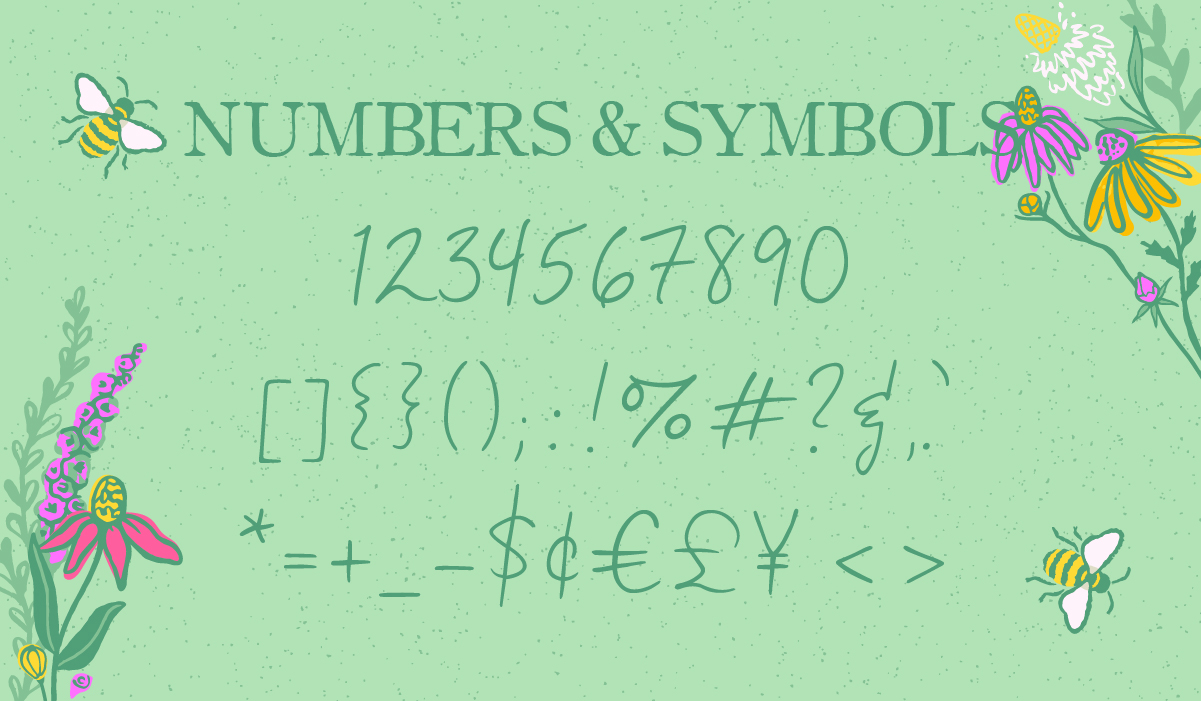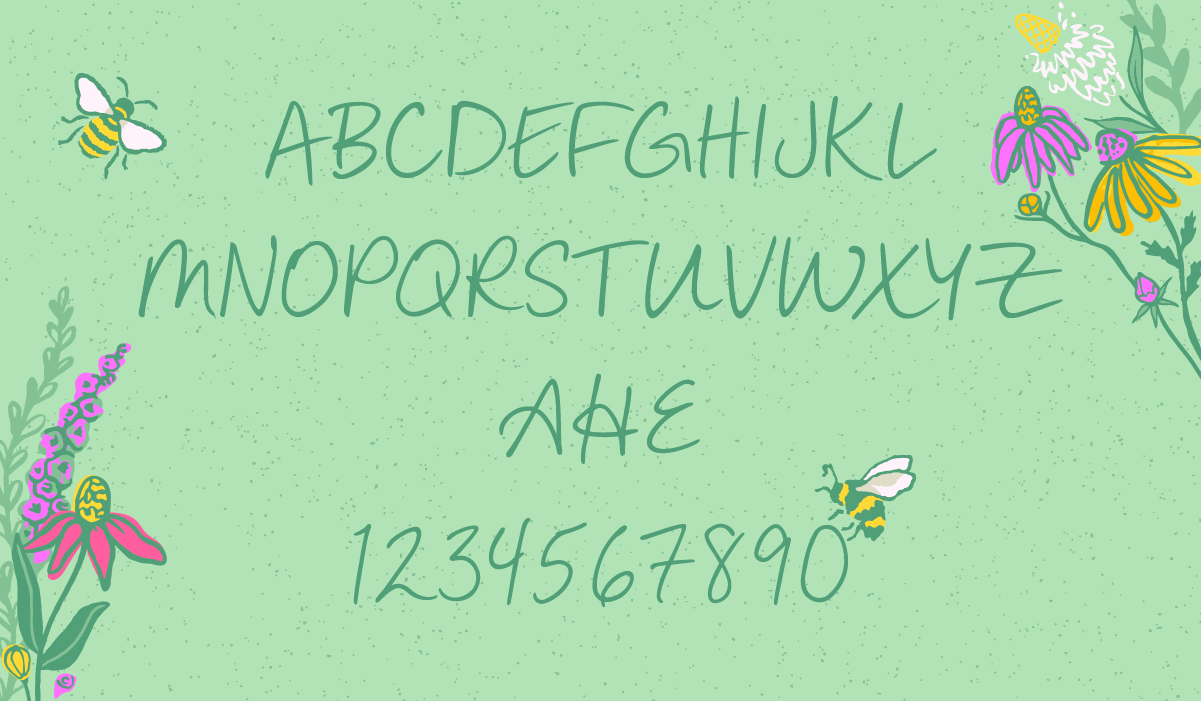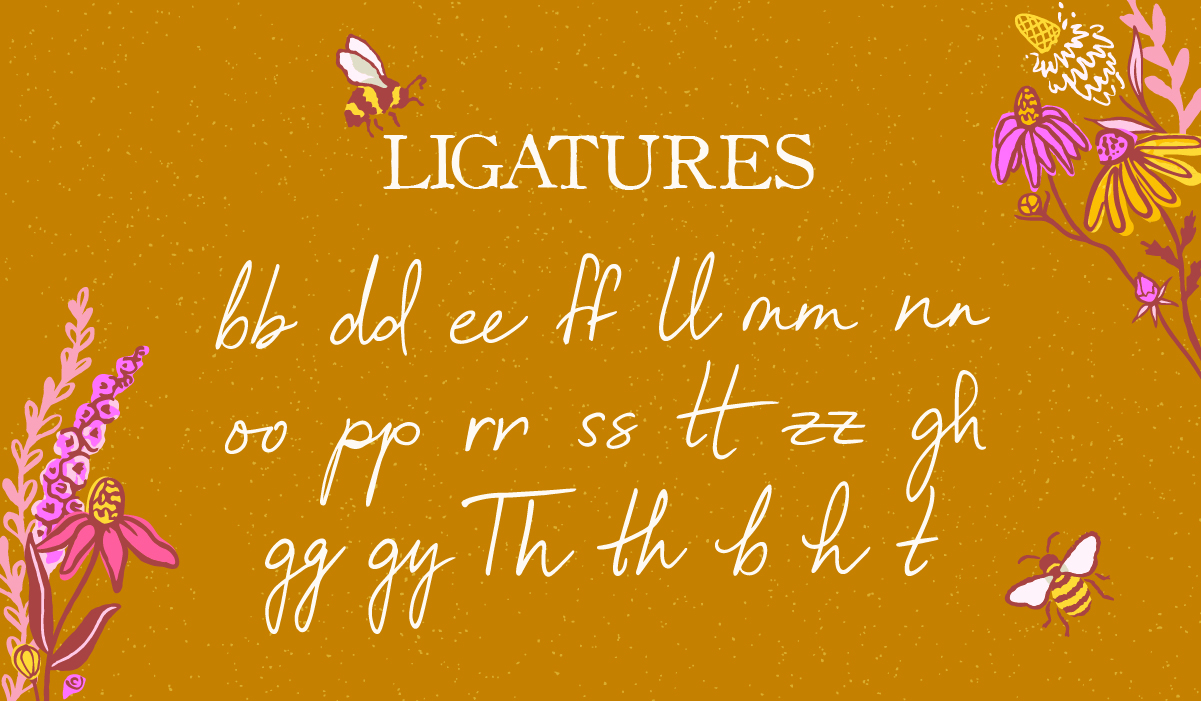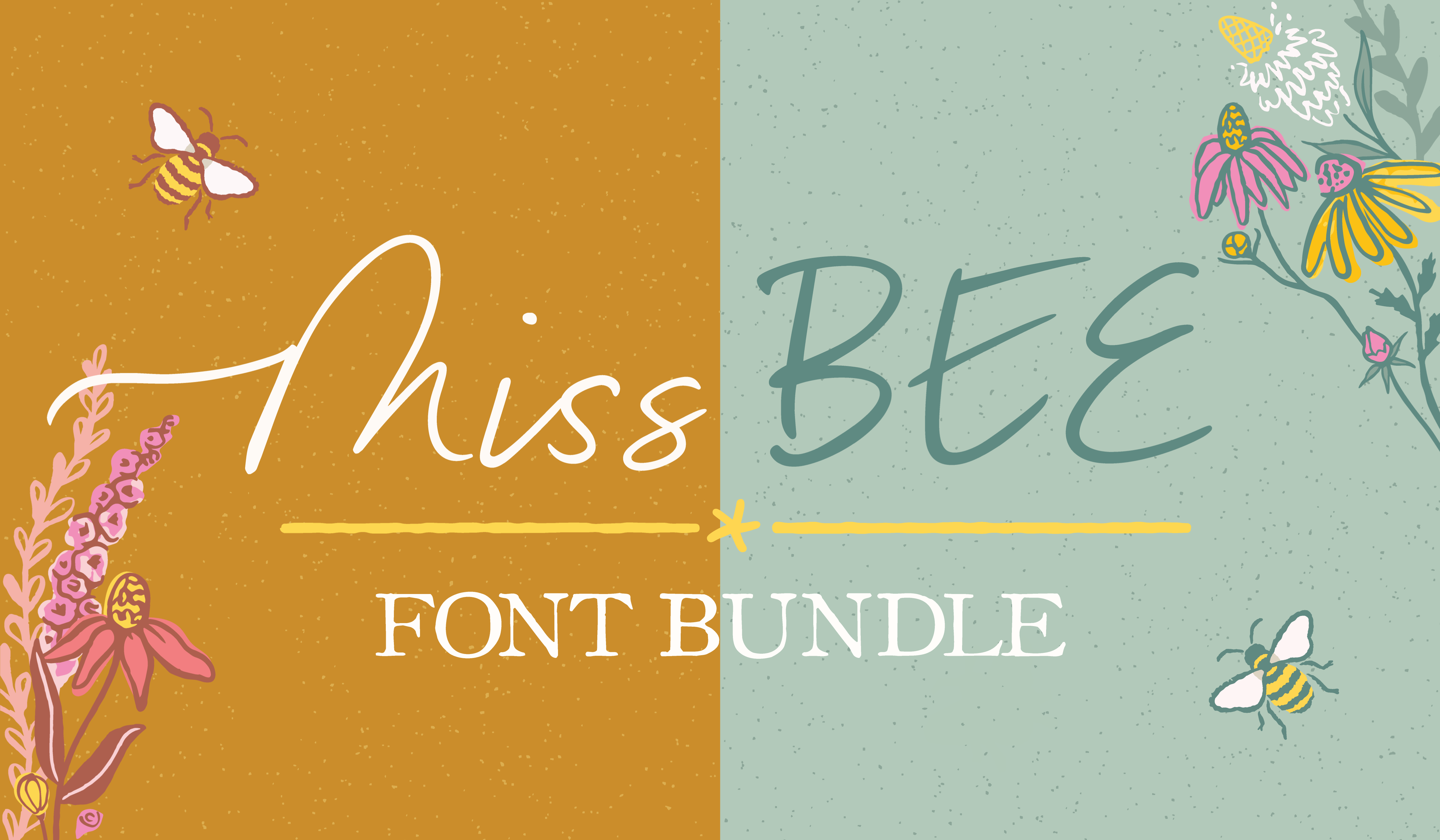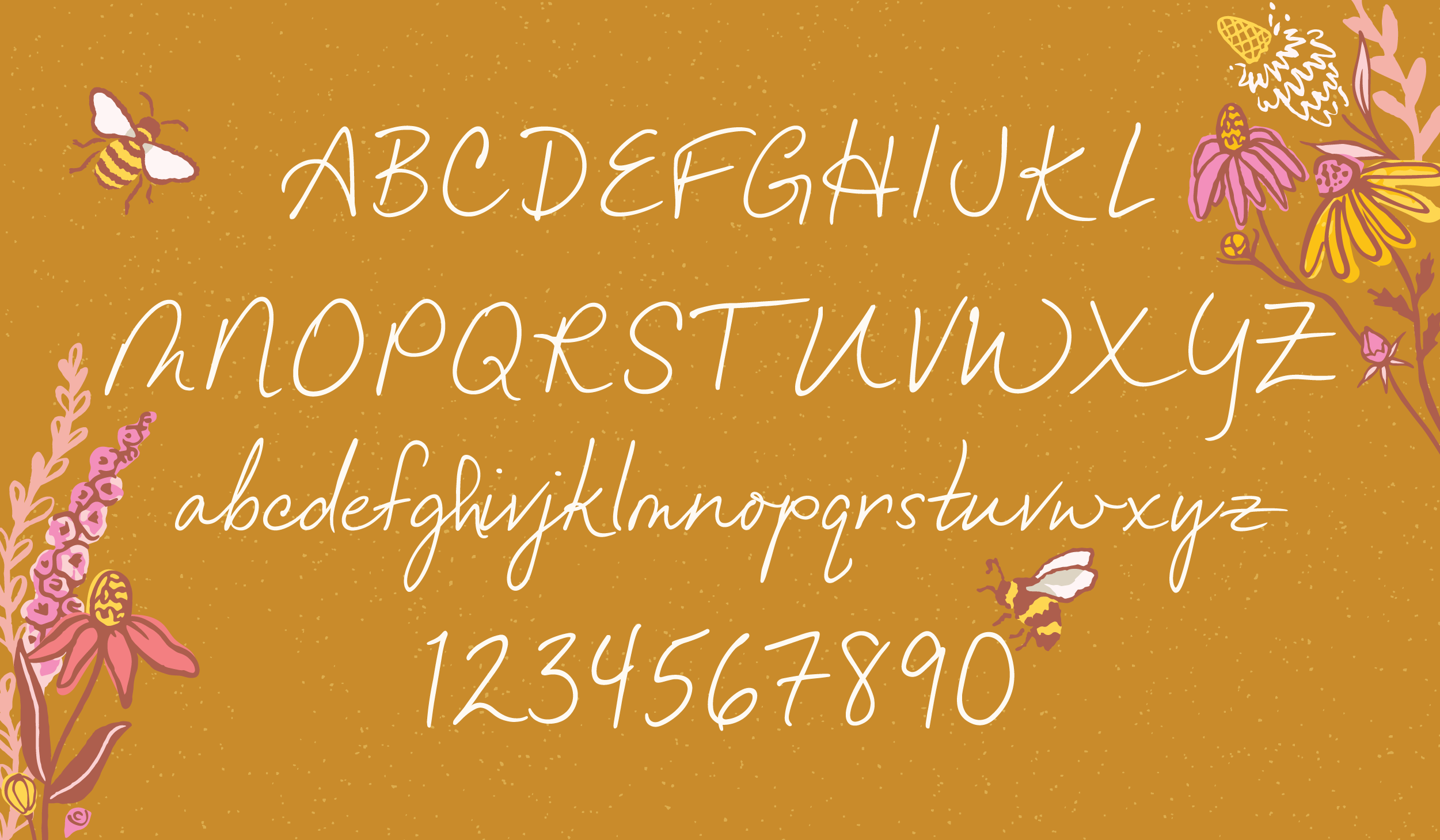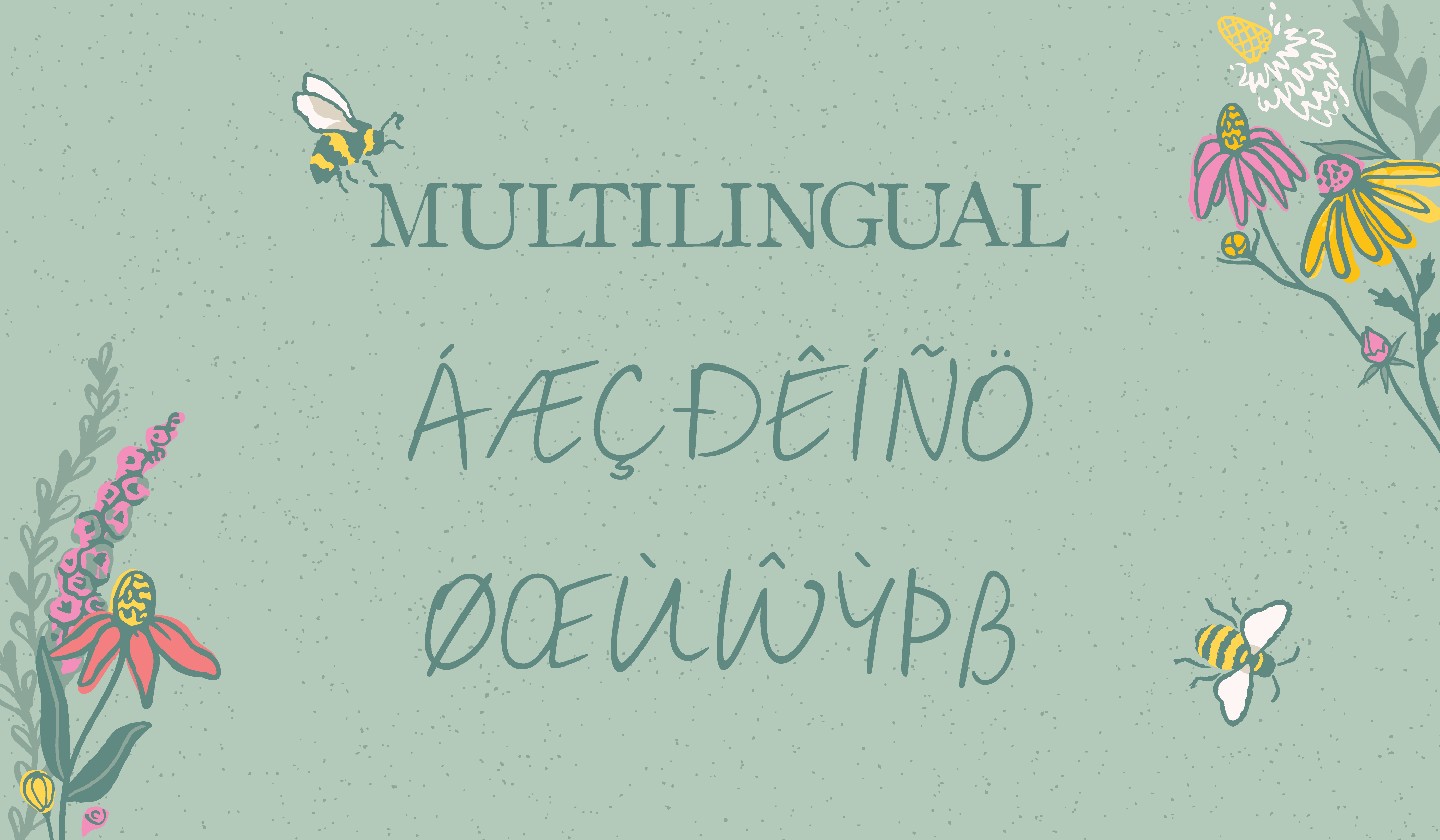
Miss Bee Font Bundle
Melissa Lee
Fun fact! Miss Bee is my handwriting in a font. I've gotten a lot of compliments on it over the years so I figured it was time I made a font of it! Includes ligatures, embellishments, matching numbers & symbols, and is multilingual. The Caps version makes for a much neater, functional all-caps option than the capitals in the Script. (Note: You also have the option of buying the Script and All Caps versions individually.)